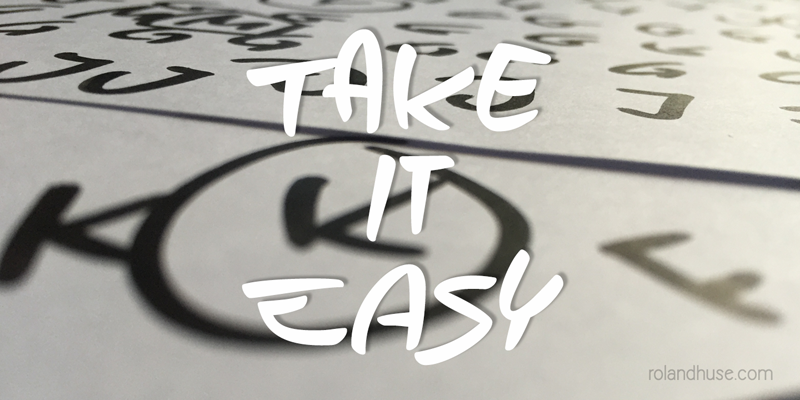
Preview and download Take it Easy Font. Created by Runes & Fonts in Script Handwritten styles with Free for personal use license.
TAKE IT EASY is a funky all caps marker hand drawn font. The "lowercase" letters are alternates for their uppercase pairs, so you can play around combining them to give your text a better flow! Free for personal use only. For commercial use please donate or contact me via myhandwritings@gmail.com You can contact me also if you have character / language extension requests, questions or feedback. You MAY NOT sell this font or claim them as your own. You MAY NOT edit or rename this font. You MAY NOT redistribute this font. Thank you & I hope you like this font, Roland http://www.rolandhuse.com https://www.facebook.com/pages/Runes-And-Fonts/123221817784772 |